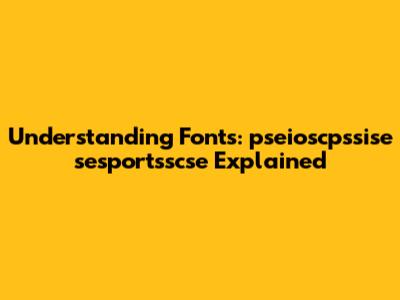
- Legibility: Choose fonts that are easy to read, especially for body text.
- Kerning and Tracking: Adjust the spacing between letters (kerning) and the overall spacing of text (tracking) to improve readability.
- Leading: Adjust the vertical space between lines of text (leading) to create a comfortable reading experience.
- Hierarchy: Use different font sizes, styles, and weights to create a clear visual hierarchy.
- Contrast: Ensure sufficient contrast between text and background to enhance readability.
Let's dive into the world of fonts and unravel the mystery behind "pseioscpssise sesportsscse." If you're scratching your head wondering what this jumble of letters means in the context of typography, you're in the right place. This article will break down what these terms might refer to, how they relate to fonts, and why understanding font terminology is crucial for anyone involved in design, web development, or content creation. So, buckle up, and let's get started!
What Exactly Are Fonts?
Before we get into the specifics, let's cover the basics. Fonts are essentially the visual representation of text. They determine how letters, numbers, and symbols appear on a page or screen. Think of fonts as the clothing that words wear; they give character and style to your message. The right font can evoke emotions, convey professionalism, or add a touch of whimsy. Different fonts serve different purposes, and choosing the right one is a critical part of visual communication.
When we talk about fonts, we often use terms like typeface, font family, and font style. A typeface is a specific design of a set of characters, such as Helvetica or Times New Roman. A font family includes all the variations of a typeface, like bold, italic, and regular. A font style refers to a specific variation within a font family. Understanding these terms will help you navigate the vast world of fonts more effectively. Whether you're designing a logo, creating a website, or writing a document, the fonts you choose play a significant role in how your work is perceived.
Decoding "pseioscpssise sesportsscse"
Now, let's tackle the elephant in the room: "pseioscpssise sesportsscse." This string of characters doesn't immediately correlate to any standard font terminology or recognized font names. It's possible that this could be a misspelling, a proprietary name used within a specific context, or even a randomly generated string. Without additional context, it's challenging to pinpoint exactly what it refers to. However, we can explore some potential interpretations and related concepts.
One possibility is that "pseioscpssise sesportsscse" might be a specific naming convention used within a particular project or organization. Companies often create their own internal naming systems for fonts and other design assets to maintain consistency and organization. If you encountered this term in a specific document or project, it would be beneficial to check internal documentation or consult with the project's design team to understand its meaning. Another possibility is that it could be a typo or transcription error. When dealing with long or complex names, it's easy for mistakes to occur. Double-checking the original source or context might reveal the correct term.
Alternatively, this string could potentially relate to a specific encoding or character set. Fonts rely on encodings to map characters to specific glyphs. If "pseioscpssise sesportsscse" is related to a particular encoding system, it might provide clues about the type of characters or languages the font supports. However, this is highly speculative without more information. In conclusion, while the exact meaning of "pseioscpssise sesportsscse" remains unclear, understanding the context in which it appears is crucial. By exploring different possibilities and conducting further investigation, you can hopefully shed light on its intended meaning and purpose.
Exploring Related Font Concepts
Since we can't definitively decode "pseioscpssise sesportsscse," let's explore some related font concepts that are essential for anyone working with typography. Understanding these concepts will provide a broader context and enhance your ability to work with fonts effectively.
Font Families and Styles
As mentioned earlier, a font family is a collection of related fonts that share a similar design. Within a font family, you'll find different styles, such as regular, bold, italic, and bold italic. Each style offers a variation in weight and appearance, allowing you to create visual hierarchy and emphasis in your text. For example, the Arial font family includes Arial Regular, Arial Bold, Arial Italic, and Arial Bold Italic. Using different styles within the same font family can create a cohesive and professional look.